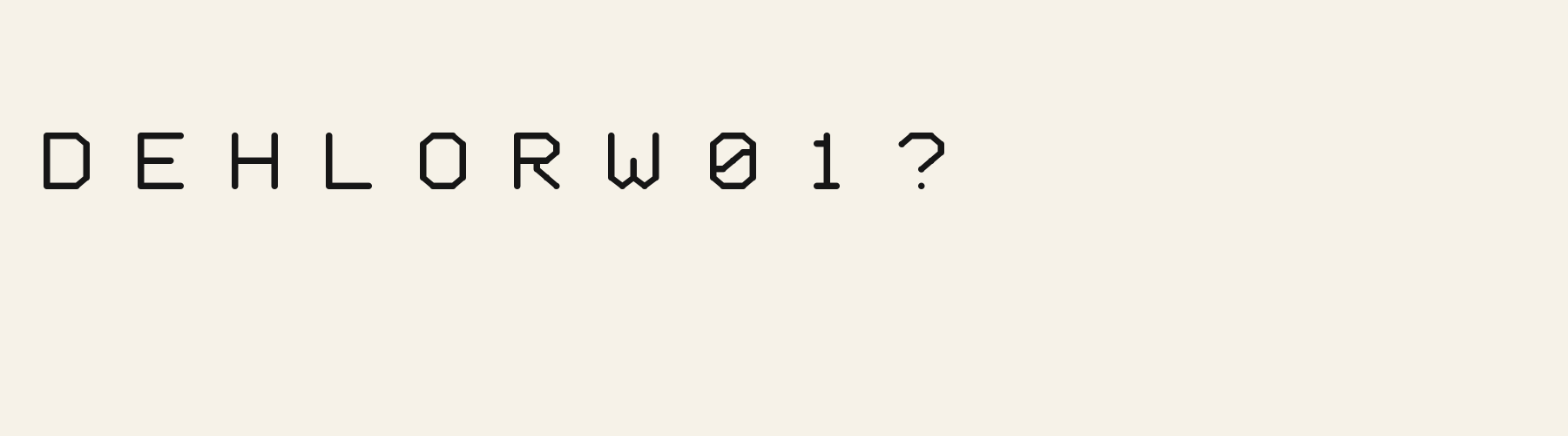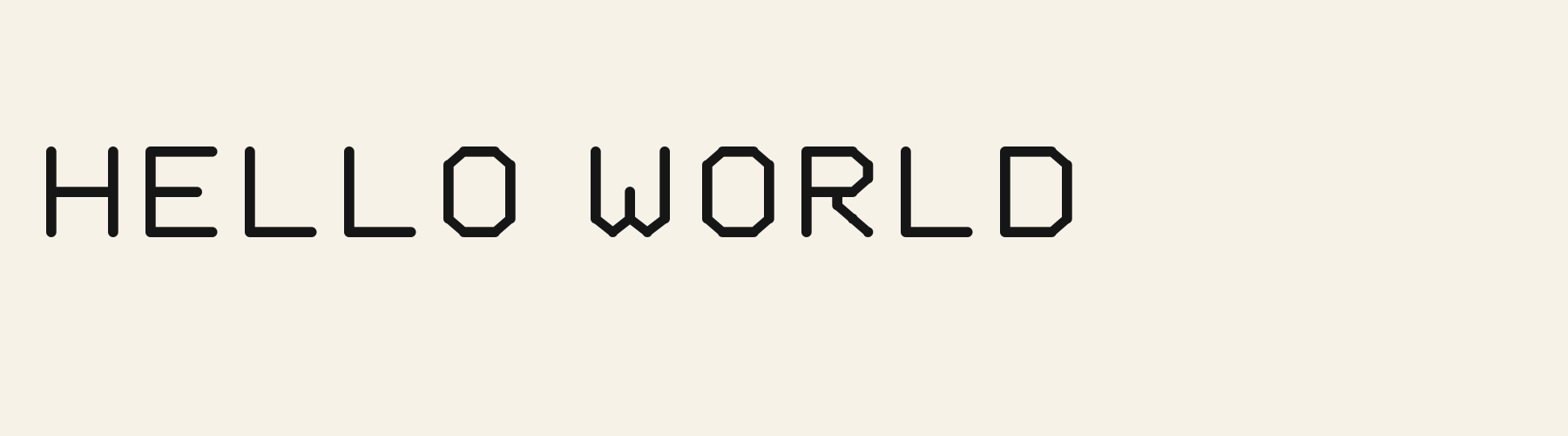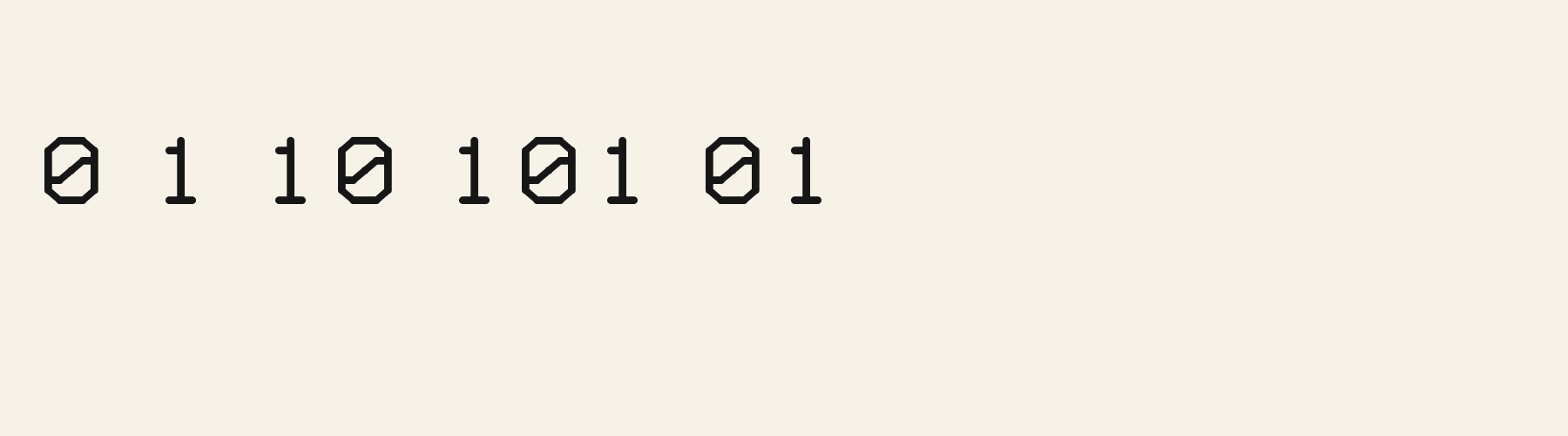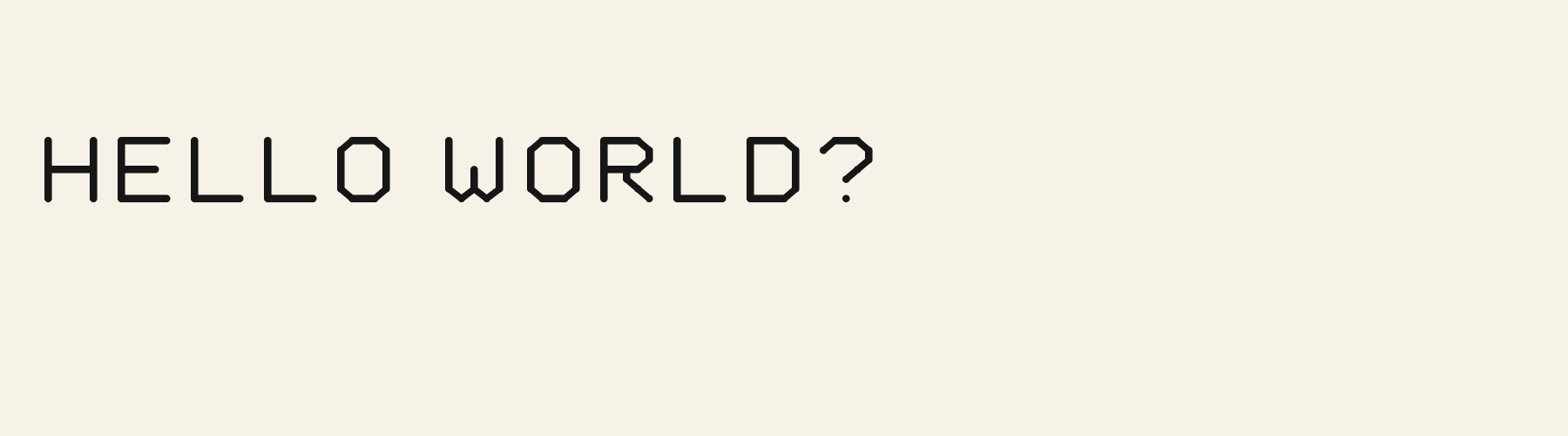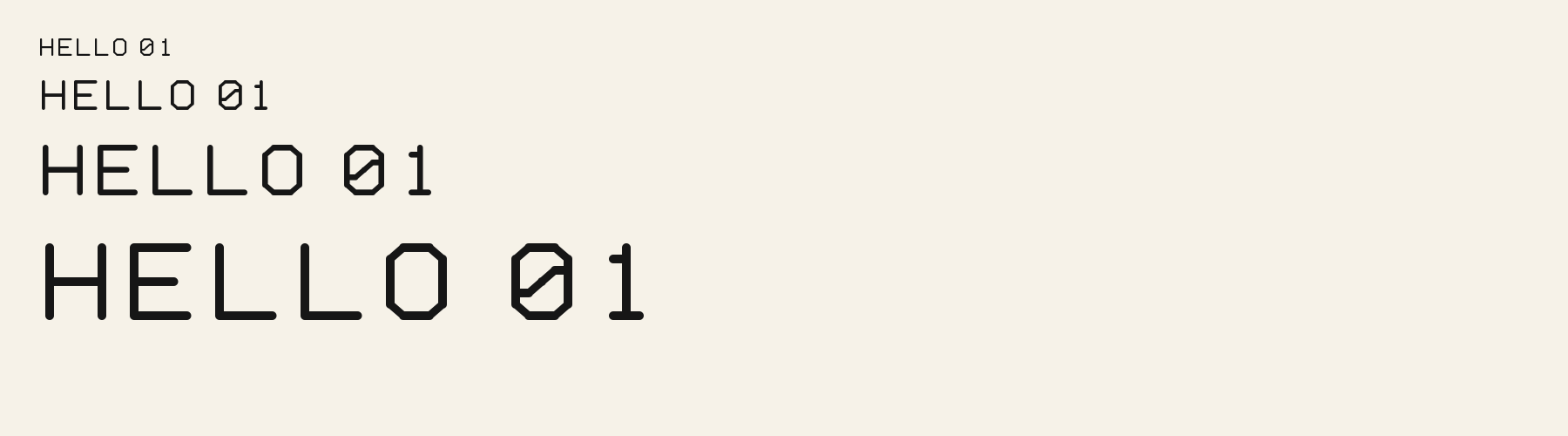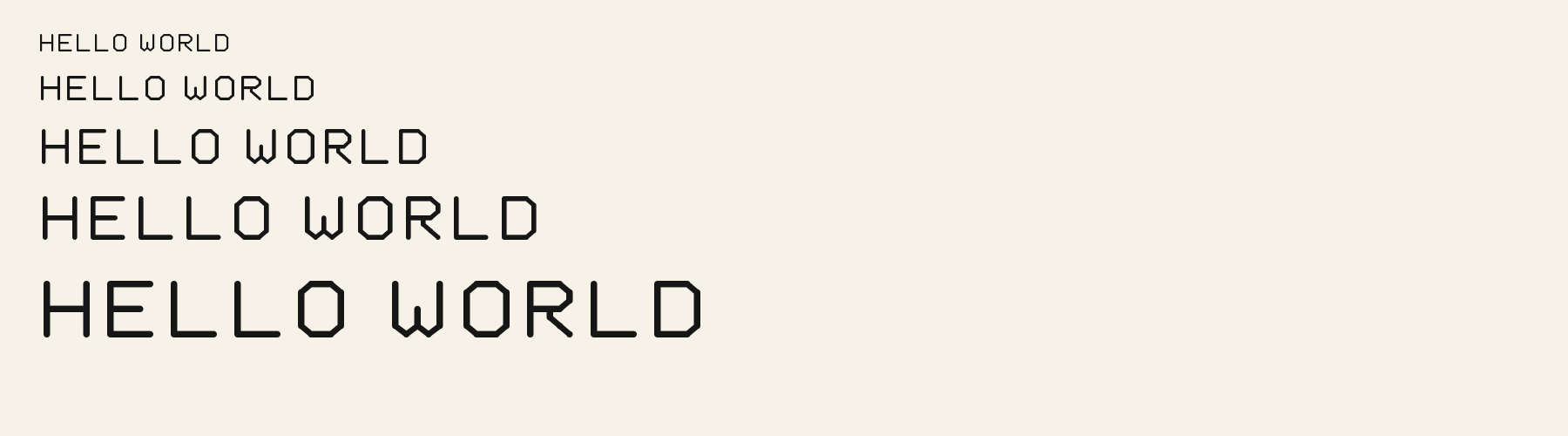
Geo Sans Round Wide Octagonal Monoline Font
Sans serif · 1 style · 226 characters · Version 0.3.2 · Published September 23, 2026
Geo Sans Round combines broad, open letterforms with even strokes and softly rounded exposed ends.
Wide Octagonal Monoline Letterforms
Geo Sans Round combines broad, open letterforms with even strokes and softly rounded exposed ends. The O has flat sides and short diagonal corners, creating an octagonal bowl rather than a smooth circle. The W drops its upright outer strokes into angular valleys around a short central stem. The R pairs a clipped bowl with a stepped transition into its diagonal leg. These angular structures sit beside simple H crossbars and long L feet, making the alphabet feel orderly and mechanical. Generous spacing and softened endpoints give short words a relaxed, approachable presence.
Check repeated Ls, octagonal Os, and W valleys in your actual Latin wording, especially where broad letters stretch a line. Compare O with the slashed zero in codes. Review Cyrillic wording separately; these specimens establish the appearance of the shown Latin capitals only.
Try this face for brief headings or product names, with a compact humanist sans for supporting text. Its broad octagonal bowls and angular W would contrast with narrower proportions and flowing curves, helping separate display wording from explanations.
Geo Sans Round: letterforms and layout
Compare the original spacing with a wider setting. The original already separates the broad letters clearly; extra tracking makes the repeated L shapes and octagonal O bowls feel more isolated and extends the heading considerably.
Geo Sans Round has heavier strokes, rounded exposed ends, and clipped corners on O and D. Its W uses upright sides and angular valleys, giving the line a modular, mechanical rhythm.
Frame Sans uses finer strokes, smoothly curved bowl corners, and flat exposed ends. Its W follows continuous diagonals, while the letters sit closer together in the supplied shared wording.
Logo or badge. The octagonal O and stepped R give a short wordmark distinctive shapes, while rounded endpoints soften its mechanical character. DESK LIGHT
Product label. Even strokes and open interiors give a short product name a clean structure with visibly softened edges. HELLO TOMORROW
Website headline. Broad capitals and angular W valleys give a brief website heading a clear geometric rhythm across the line.
The scenes are illustrations drawn on this page with Geo Sans Round itself, not client work.
About Geo Sans Round
Its x-height is 70.4% of the cap height, near the 71.4% typical of sans serif fonts in the library, lower than 23 of the 34 other sans serif fonts. Ascenders on b, d, h, k and l line up with the capitals (100% of their height), and descenders on g, j, p, q and y drop 29.6% of the cap height below the baseline, deeper than 22 of the 34 other sans serif fonts. It sets wide: an average lowercase letter, spacing included, is 108.6% as wide as the capitals are tall (an average capital, 109.3%), 38.7% more than the median for sans serif fonts, so the same words take a longer line. The o is close to a circle, 1.13 times as wide as it is tall, and M and W are the widest capitals, at 1.12 times the width of H. O stands exactly as tall as H and sits on the baseline, with no overshoot.
The letters stand upright, leaning less than 2.5° either way. Vertical stems measure 11.3% of the cap height, heavier than 15 of the 28 other sans serif fonts. Ink covers 21.8% of each lowercase letter's box (its advance width by the cap height), lighter than 23 of the 34 other sans serif fonts. Strokes keep one thickness in every direction: the sides of o and O measure the same as their tops and bottoms.
Its 226 characters include 116 Latin and 66 Cyrillic letters, plus 44 figures, punctuation marks and symbols; 64 of the Latin letters are accented or special forms beyond A to Z. The word space measures 52.9% of the cap height, and the blank space either side of a lowercase letter takes up 31.2% of its width. The font carries no kerning, so spacing comes from each letter’s own side bearings. All ten figures share one width, so columns of numbers line up.
Measured from the version 0.3.2 font file. Comparisons are with the 376 published library fonts measured on November 8, 2026, 35 of them sans serif fonts.
- Saga Serif (serif), Brush Roman Press (serif) and Anchor Script (script) are drawn on a different letter structure, so Geo Sans Round can carry the headings while one of them sets the text. Each has its own page with a type tester for trying the pair.
- In the same sans serif style: Ledger Sans (30% narrower, heavier strokes); Signage Shopfront Round (heavier strokes, 28% narrower); Plaza Sans (30% narrower, heavier strokes).